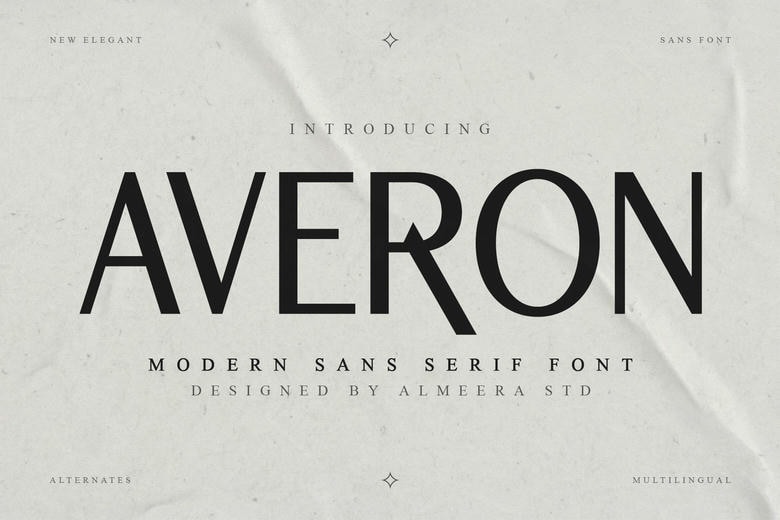
Averon Font
Averon is a modern sans serif font, clean and elegant that is detailed, balanced, and modern. It has minimal construction and sophisticated geometry which give it a professional tone of visual that seems timeless but also modern. Averon focuses on ease of reading and does not lose aesthetic content which makes it a reliable selection when it comes to the structured and modern design systems.
Averon is an outstanding typeface in branding, editorial layouts, headline, digital interfaces, and visual identities with its smooth letterforms and a well-balanced spacing. Flexibility Multilingual support and stable proportions Multilingual support provides flexibility in any global and commercial creative application.
Averon Sans Serif Font